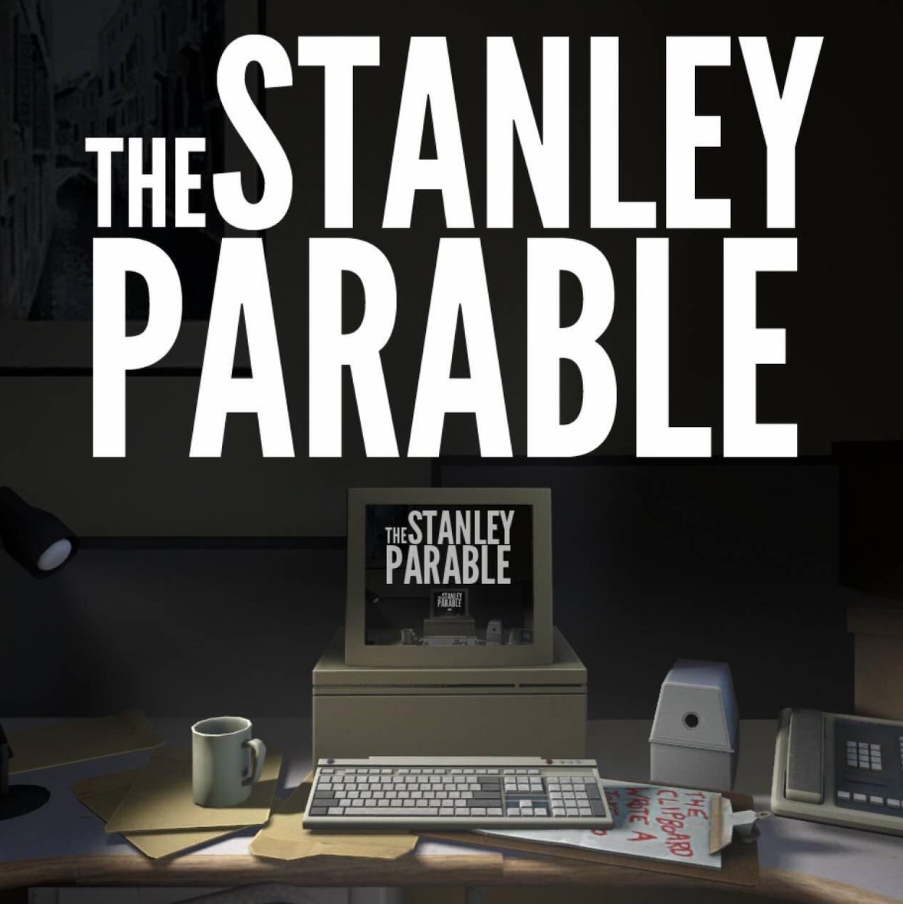
The Stanley Parable Font
Fonts in UseThe Stanley Parable s an interactive narrative-driven game where the player controls Stanley, a white-collar office worker, as he navigates his way through a series of absurd and surreal scenarios, each with multiple branching paths and endings. The game is designed by Davey Wreden.
The Stanley Parable game features League Gothic, an open-source condensed sans-serif font, as its title font. The font is a revival of Morris Fuller Benton's Alternate Gothic #1 and is available for download at no cost from the Fonts Used Section.